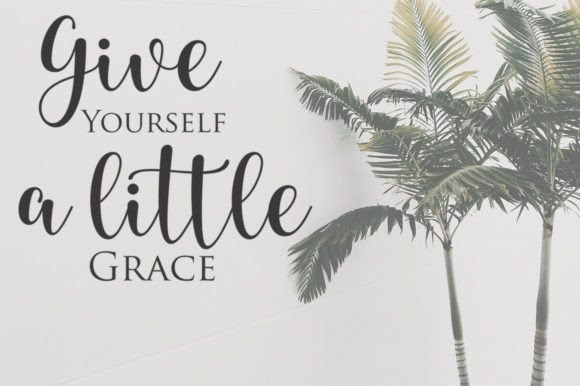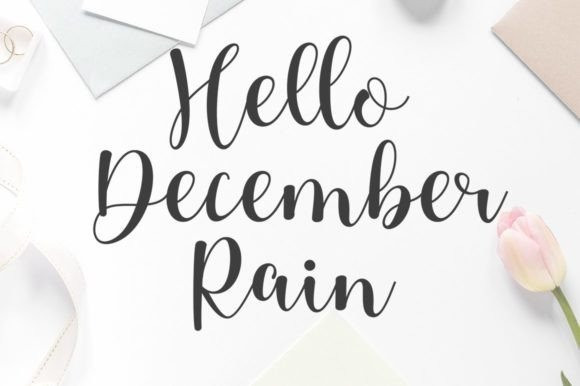
Baby Melany Font
Baby Melany Font is a graceful and refined handwritten font that exudes sophistication and femininity. Its delicate strokes, flowing curves, and signature-style loops create a sense of romance and elegance, making it perfect for wedding invitations, feminine branding, and editorial layouts. Lavender is a font that adds a touch of sophistication and charm to any project. This font is PUA encoded which means you can access all of the amazing glyphs and ligatures with ease!